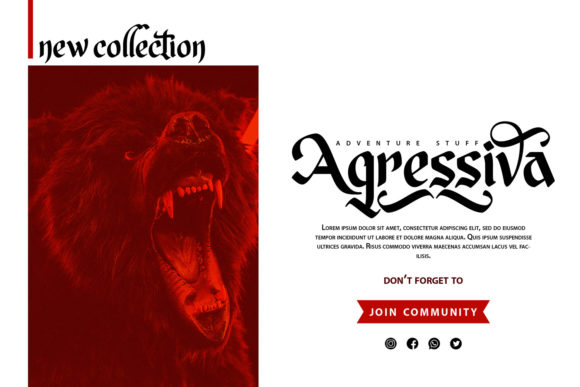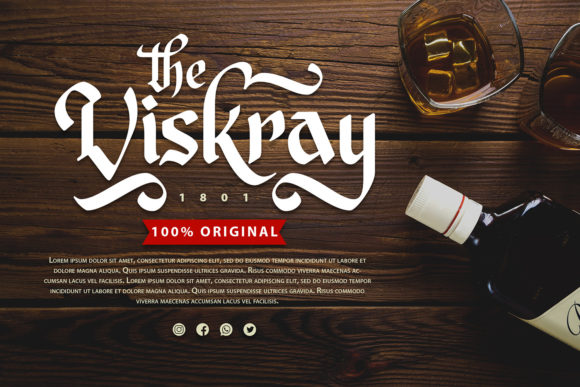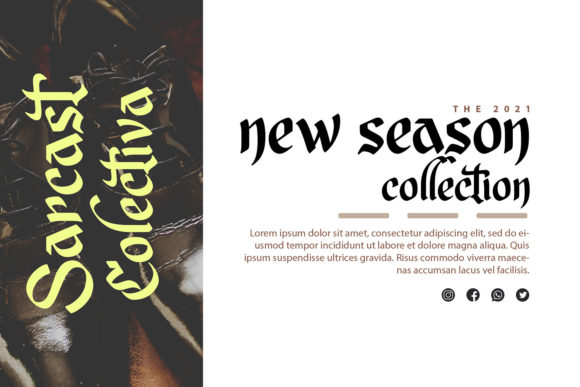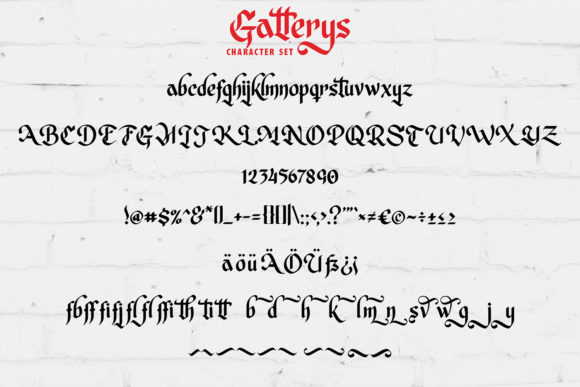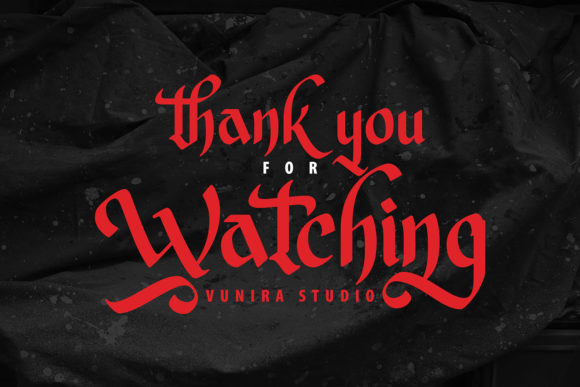
The Elegance of Gatterys Font: A Designer’s Delight
I still remember the project that led me to discover Gatterys Font. I was working on a branding campaign for a luxury goods company, and I needed a font that exuded strength, confidence, and a touch of nostalgia. After hours of scouring font libraries and testing various options, I stumbled upon Gatterys Font. Its unique blackletter style immediately caught my eye, and I knew I had found the perfect fit. In this article, I’ll share my experience with Gatterys Font, its features, and how to make the most of it in your designs.
An Honest Review of Gatterys Font
- ✨ Distinct and elegant blackletter style that adds a touch of sophistication to any design
- ✅ Strong and confident appearance that’s perfect for luxury brands and high-end products
- 💡 Dynamic and versatile, suitable for a wide range of design applications, from logos to headings
- 🎨 Highly legible, even at smaller font sizes
While Gatterys Font is an excellent choice for many design projects, there are a few quirks to be aware of:
- 🤔 Limited suitability for body text, as its blackletter style can be challenging to read in longer passages
- ⚠️ Some characters may not work well in all contexts, requiring manual kerning adjustments
A Practical Guide to Using Gatterys Font
The Backstory of Gatterys Font
Gatterys Font was designed with the goal of creating a unique and elegant blackletter font that would add a touch of sophistication to any design. Inspired by traditional blackletter scripts, the designer aimed to create a font that would be both strong and dynamic, with a highly legible appearance. Through careful attention to detail and a passion for typography, Gatterys Font was born.
| Font Name | Gatterys Font |
| Author | Vunira |
| What is Gatterys Font? | Gatterys Font is a distinct and elegant blackletter font designed for luxury brands and high-end products. |
| Is Gatterys Font suitable for body text? | While Gatterys Font is highly legible, its blackletter style may not be the best choice for longer passages of body text. |
| Does Gatterys Font support OpenType features? | Yes, Gatterys Font supports OpenType features, including stylistic alternates, glyphs, and ligatures. |